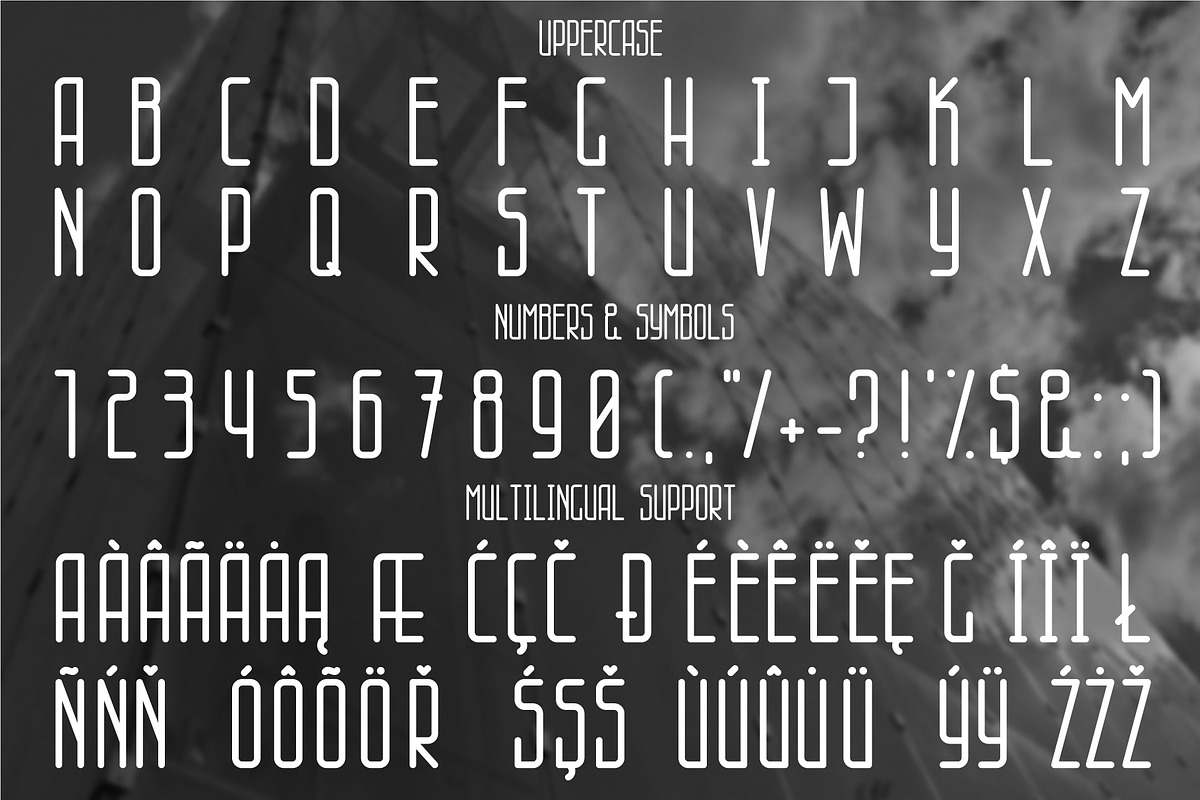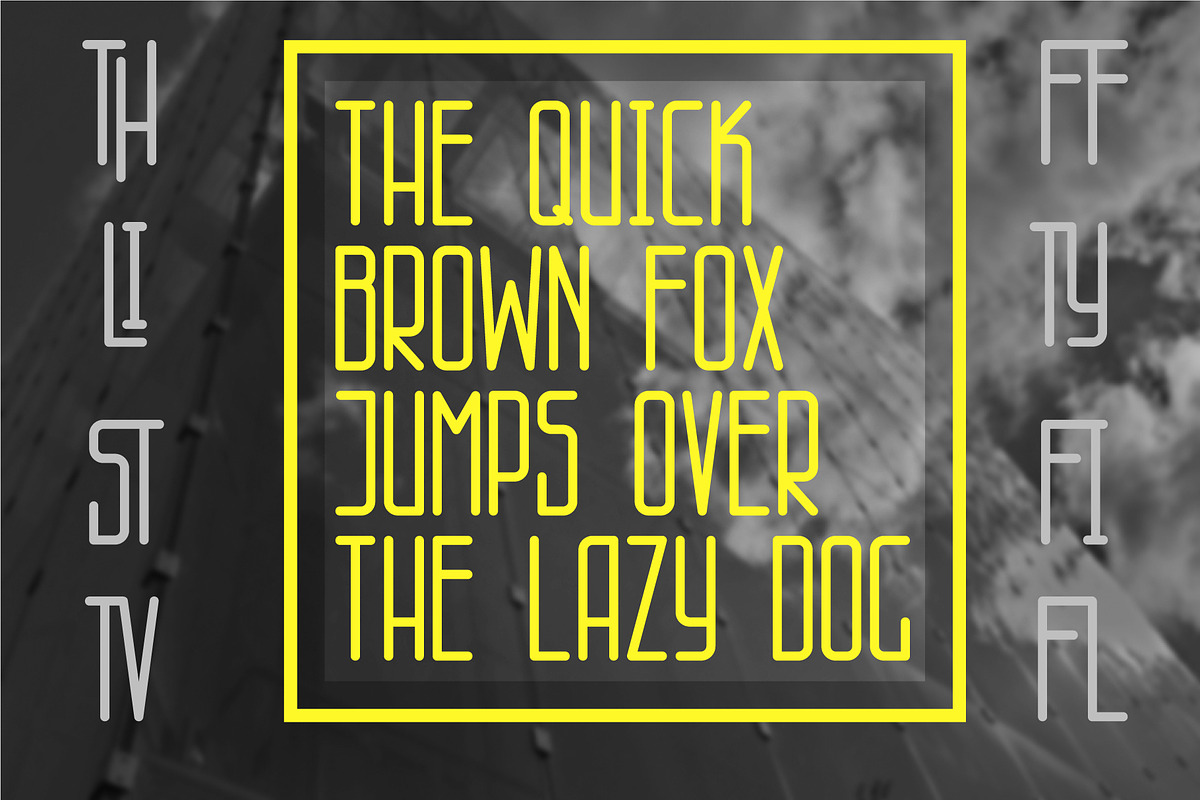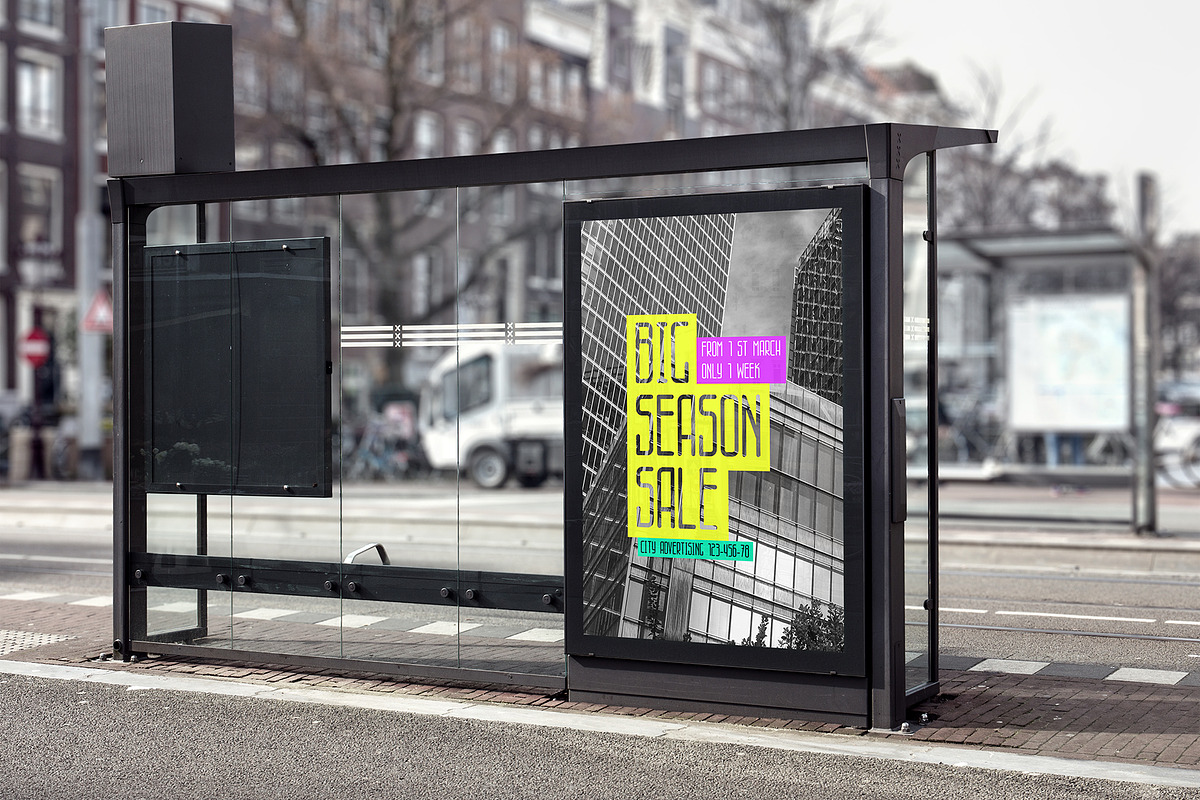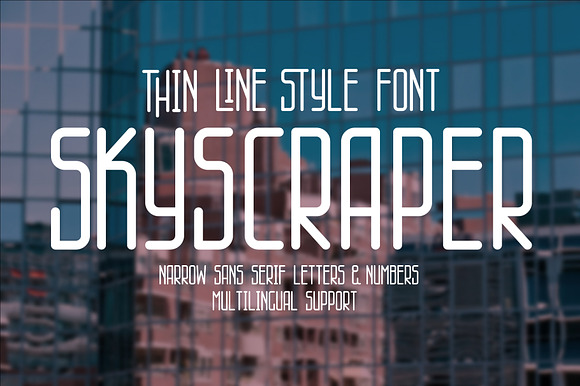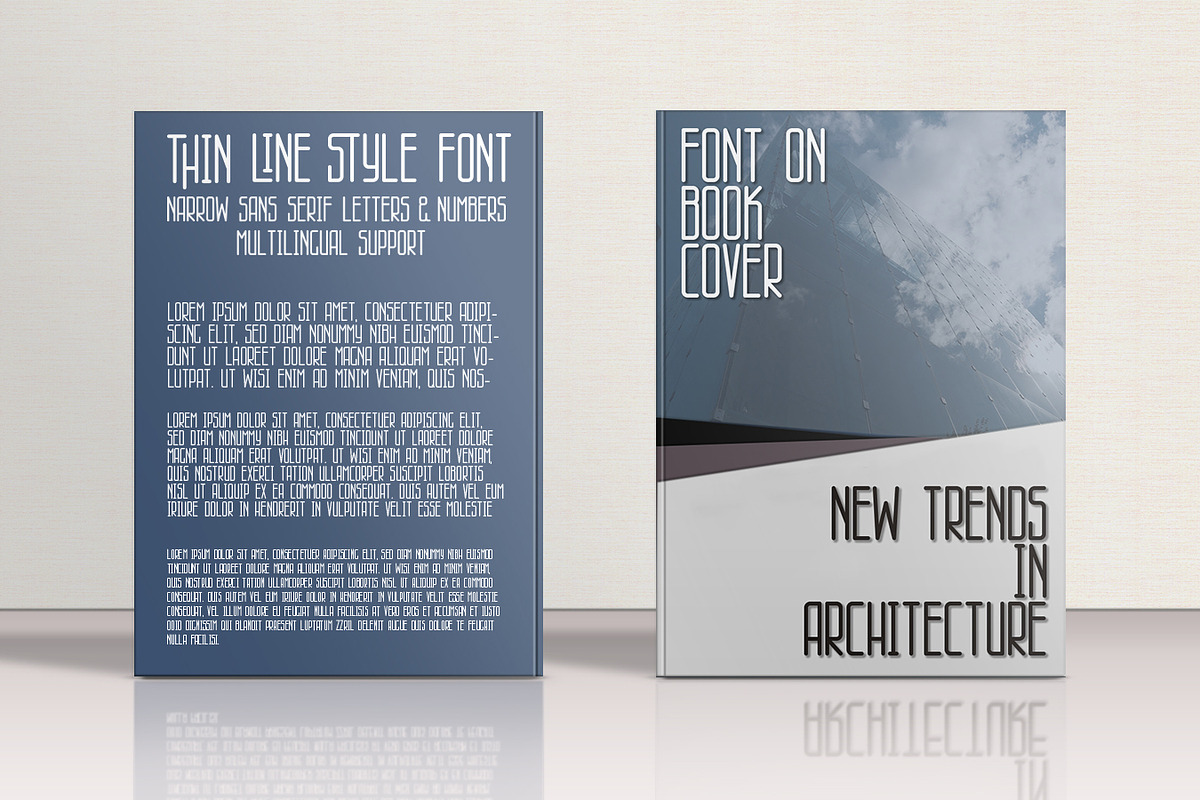
Skyscraper thin line style font.
Thin line style font. High slender letters with rounded ends. Simple and clean forms. Only uppercase letters here. This font is intended for use at large sizes for headings and titles. You need to print with the CAPS key pressed. The font contains ligatures. Multilingual support.
Skyscraper thin line style font. by belander fits naturally into Branding, posters, packaging, typography.